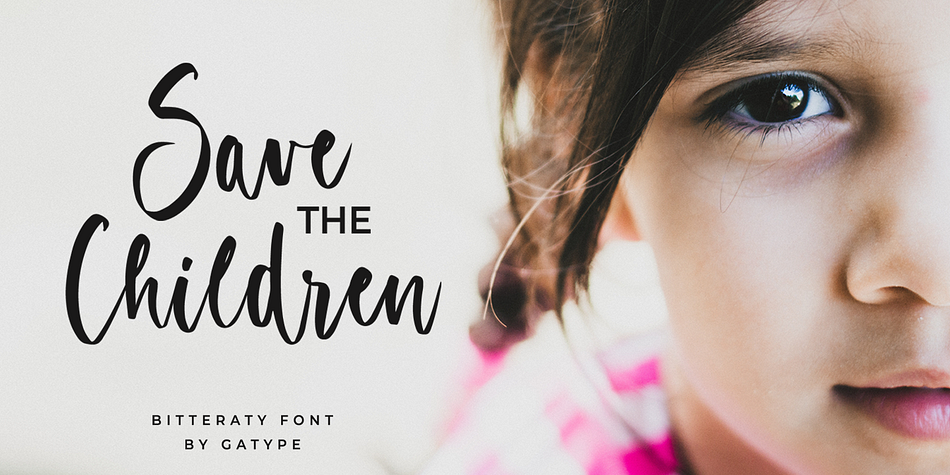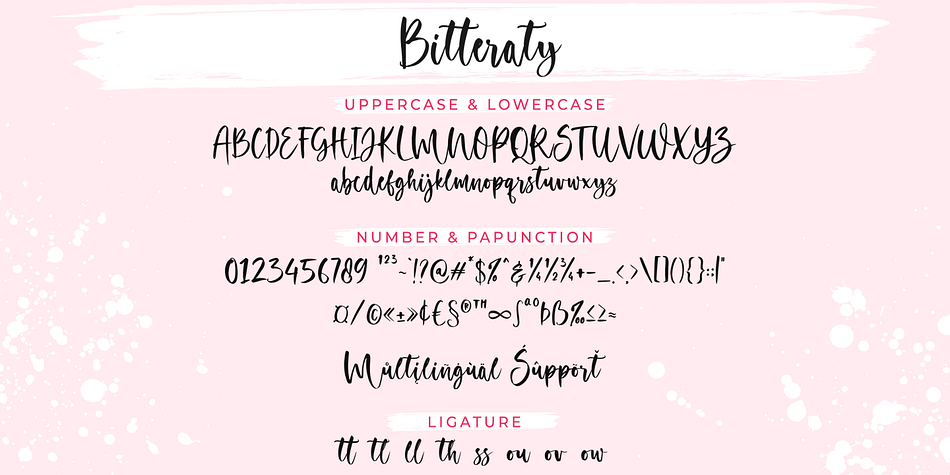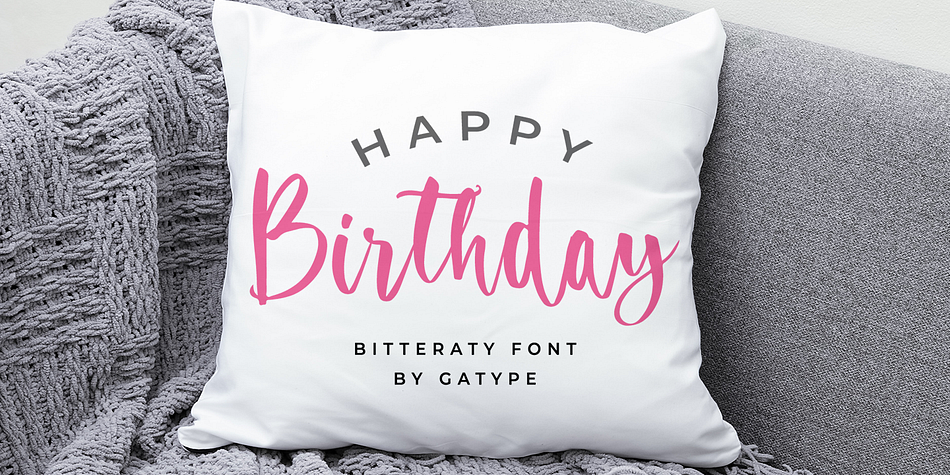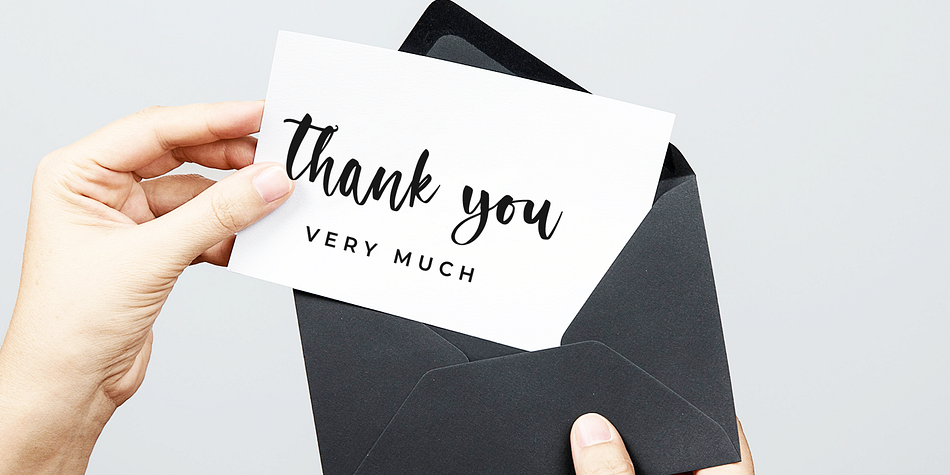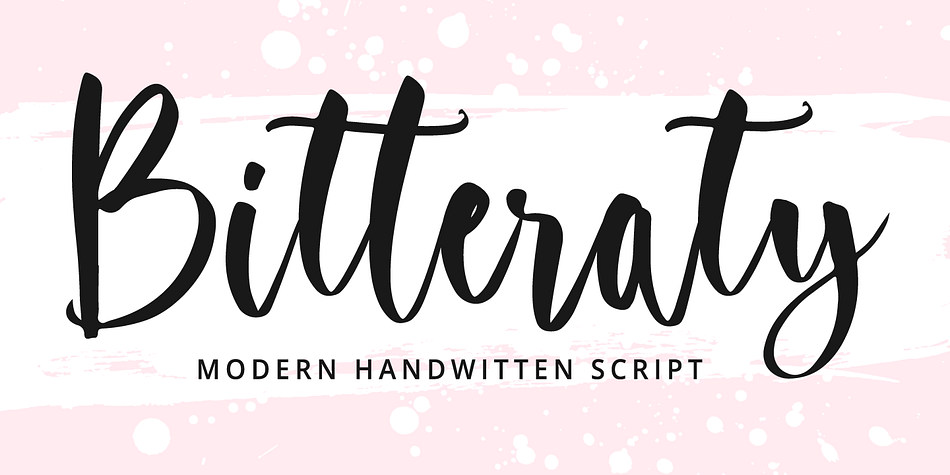
Bitteraty
Bitteraty is a brush script and hand drawn font family published by Gatype.
Bitteraty is a modern, handwritten, modern calligraphy font. The shape is modern and unique and the writing style is very natural. Bitteraty features a varied baseline, smooth lines, gorgeous glyphs, and stunning alternatives. Hand-drawn design elements allow you to create many beautiful typographic designs in an instant like branding, web design and editorial, prints, crafts, quotes, It’s great for logotypes, wedding invitations, romantic cards, labels, packaging, spelling of names and others. Add to your most creative ideas and watch how they bring them to life.